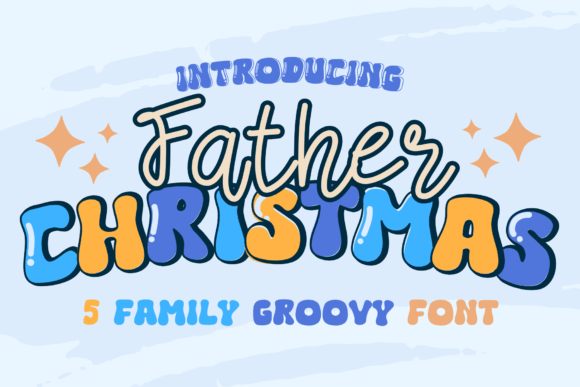
Journey to the North Pole with Father Christmas Font - A Retro Groovy Display Font Brimming with Playfulness and Authenticity!
In a world saturated with cookie-cutter fonts, Father Christmas Font stands out like a beacon of individuality, an eccentric masterpiece that radiates playfulness and authenticity. Its retro groovy style is a whimsical fusion of nostalgia and modernity, capturing the magic of bygone eras while embracing the vibrancy of today's design landscape.
With Father Christmas Font, your creative projects will embark on an enchanting adventure, transforming ordinary words into captivating expressions. Imagine your blog posts dancing with a touch of whimsy, your logos radiating a unique charm, your branding soaring to new heights of distinction. Envision your advertisements captivating audiences with an irresistible allure, your invitations spreading joy with every word, your greeting cards brimming with warmth and cheer.
This font is a versatile chameleon, seamlessly adapting to a myriad of design endeavors. Let it adorn your planners, adding a dash of personality to your daily schedule. Infuse your photo albums with a touch of vintage charm, preserving memories with a timeless aesthetic. Create decorations that exude festive cheer, turning every space into a wonderland of delight. The possibilities are boundless, waiting for your imagination to unleash their magic.
Father Christmas Font is not just a font; it's an experience, an invitation to embark on a creative voyage where the ordinary transforms into the extraordinary. It's a font that speaks to your soul, igniting a spark of inspiration that sets your creativity ablaze. Embrace Father Christmas Font today, and let your designs embark on a journey to the North Pole, where playfulness and authenticity reign supreme.